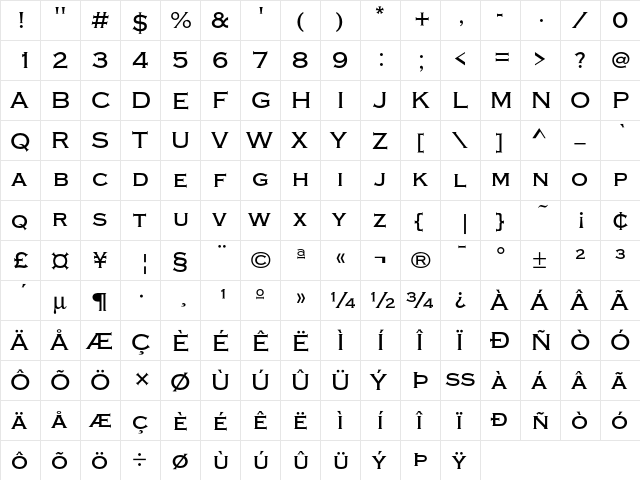
CoppeTMed Regular
Design Context for CoppeTMed Typeface
CoppeTMed takes a measured approach to typography — its balanced proportions and neutral character make it a reliable workhorse for both digital and print work.
Pro Tip: Use CoppeTMed in both headline and body roles to test its range before committing to a single application.